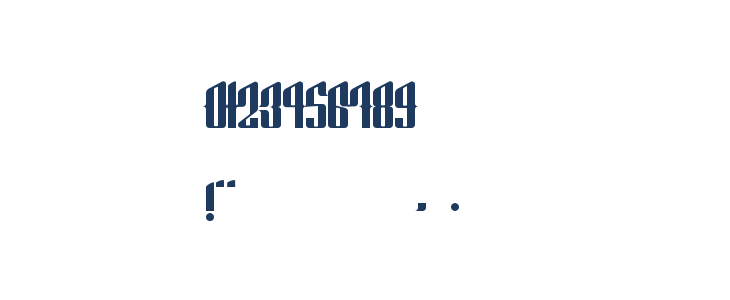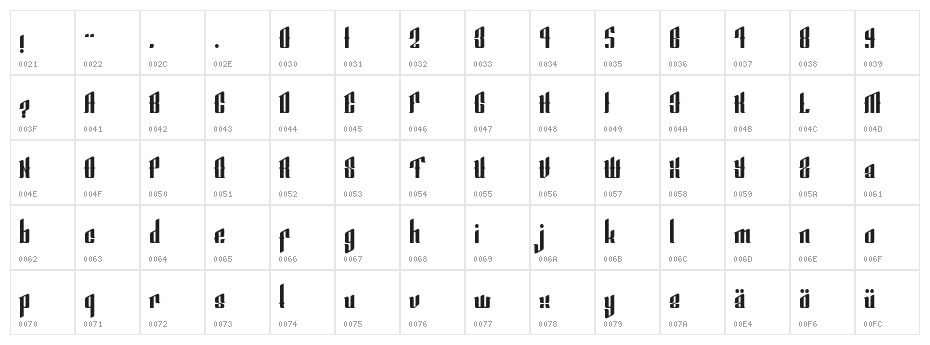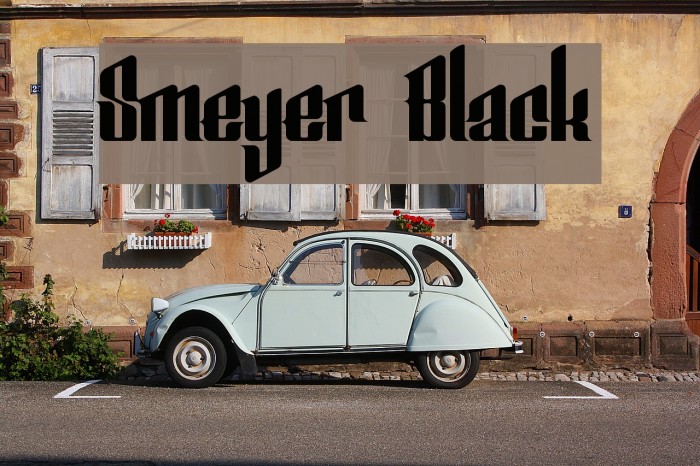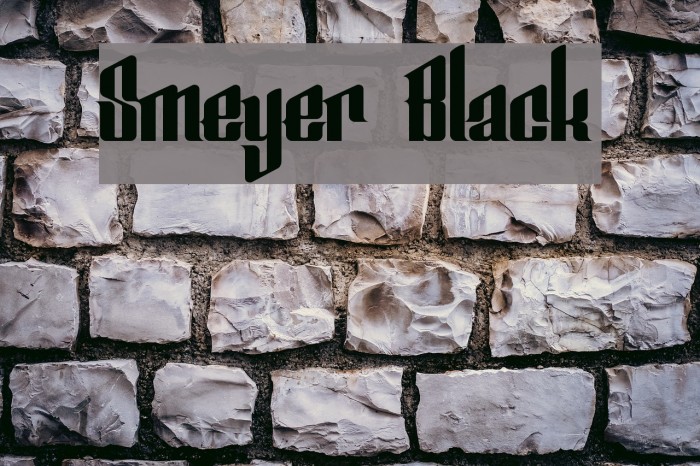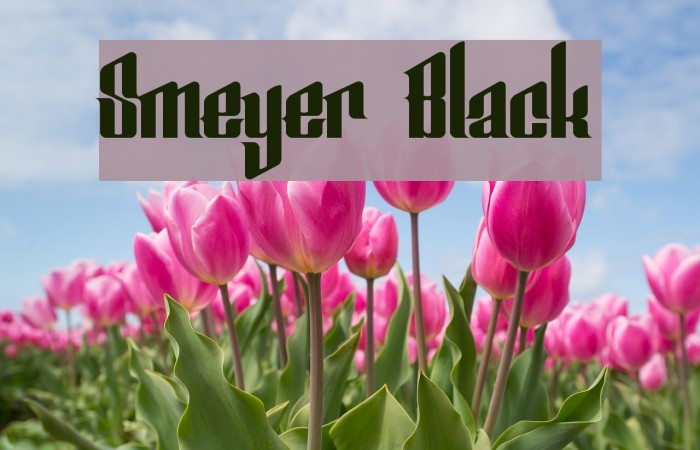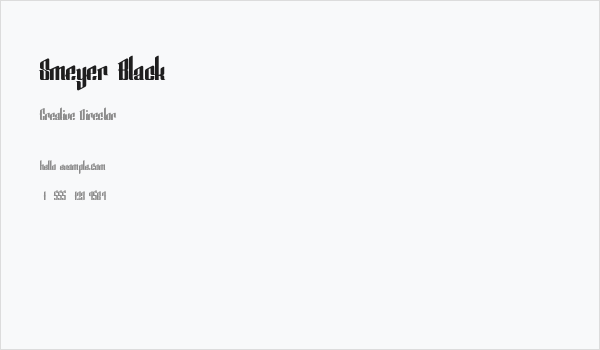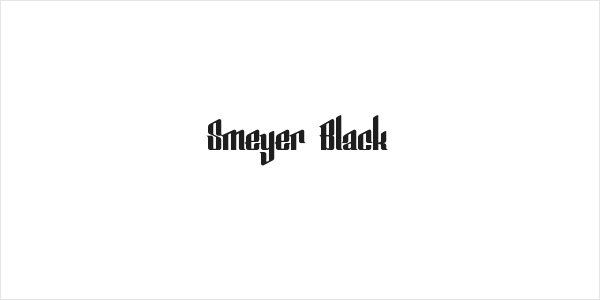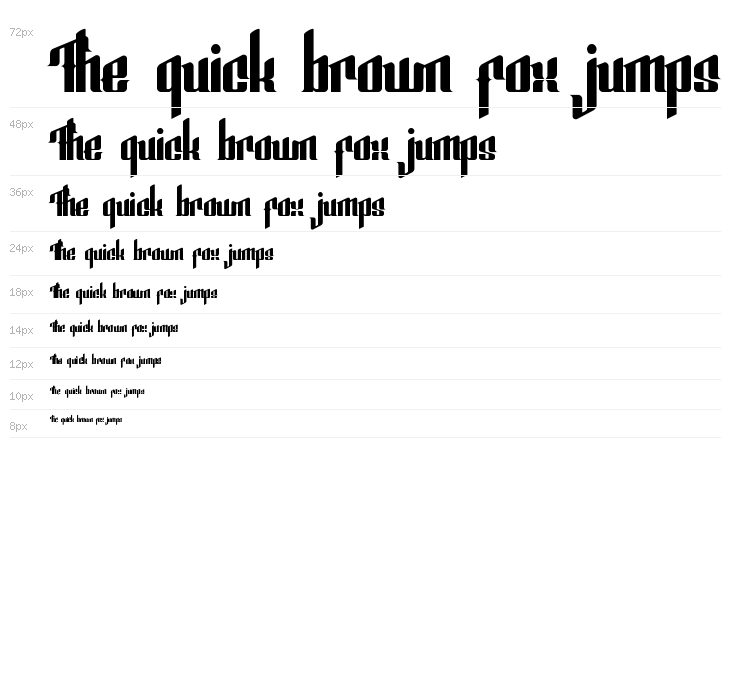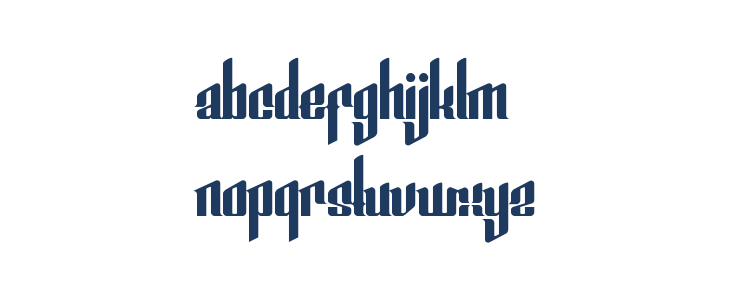
Smeyer Black Font
Smeyer Black Description
This font features a bold and striking design with a strong geometric influence. The characters are tall and narrow, with sharp angles and a consistent stroke width that gives it a modern and structured appearance. The uppercase letters are particularly distinctive, with unique cuts and angles that create a sense of movement and energy. The lowercase letters maintain the same angular style, ensuring consistency throughout the typeface. The numerals and special characters are equally bold, making them stand out effectively. This font's overall aesthetic is both modern and slightly futuristic, making it suitable for a variety of creative applications.